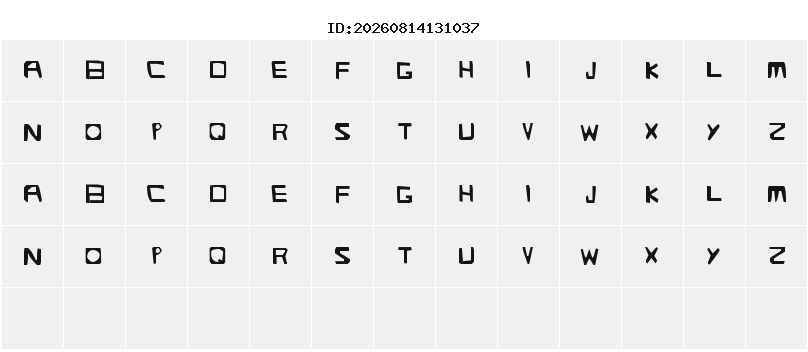
• Font Name: Streetlight
• Full Font Name: Streetlight
• Version: Version 1.00 March 12, 2005, initial release
About Streetlight.ttf
Streetlight.ttf is a modern, elegant sans-serif font designed for ultimate readability and visual harmony. Perfect for branding, headlines, web design, and print materials.